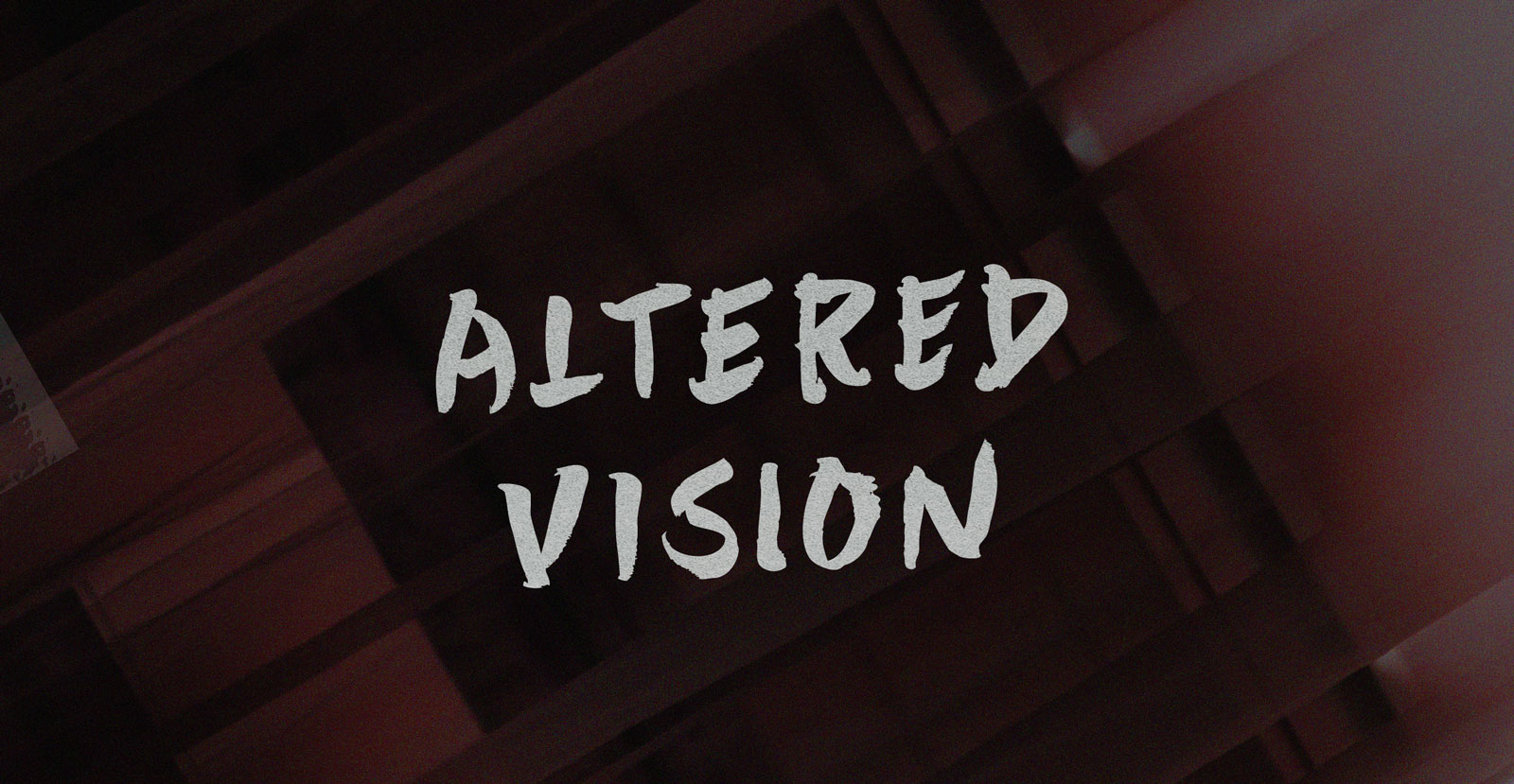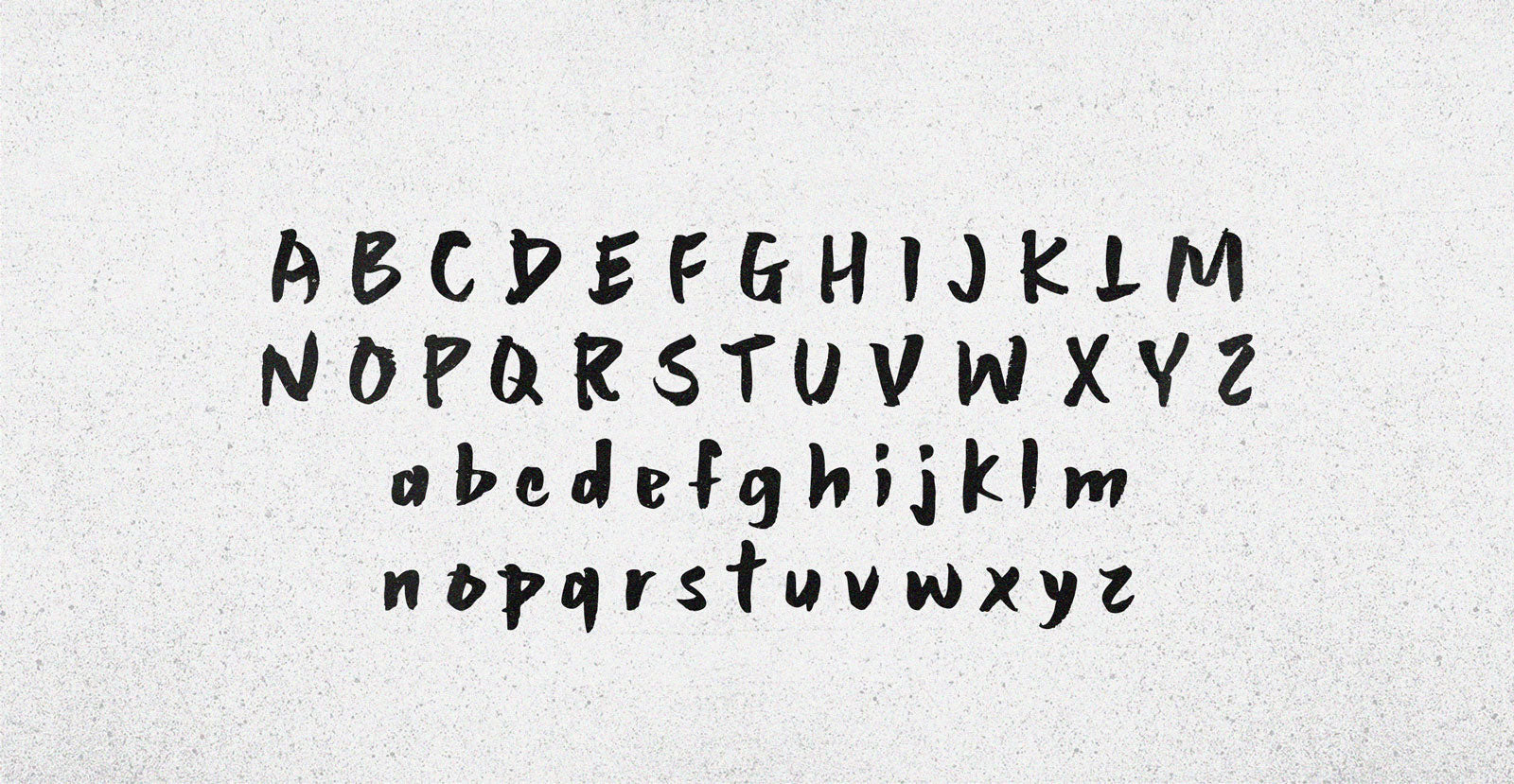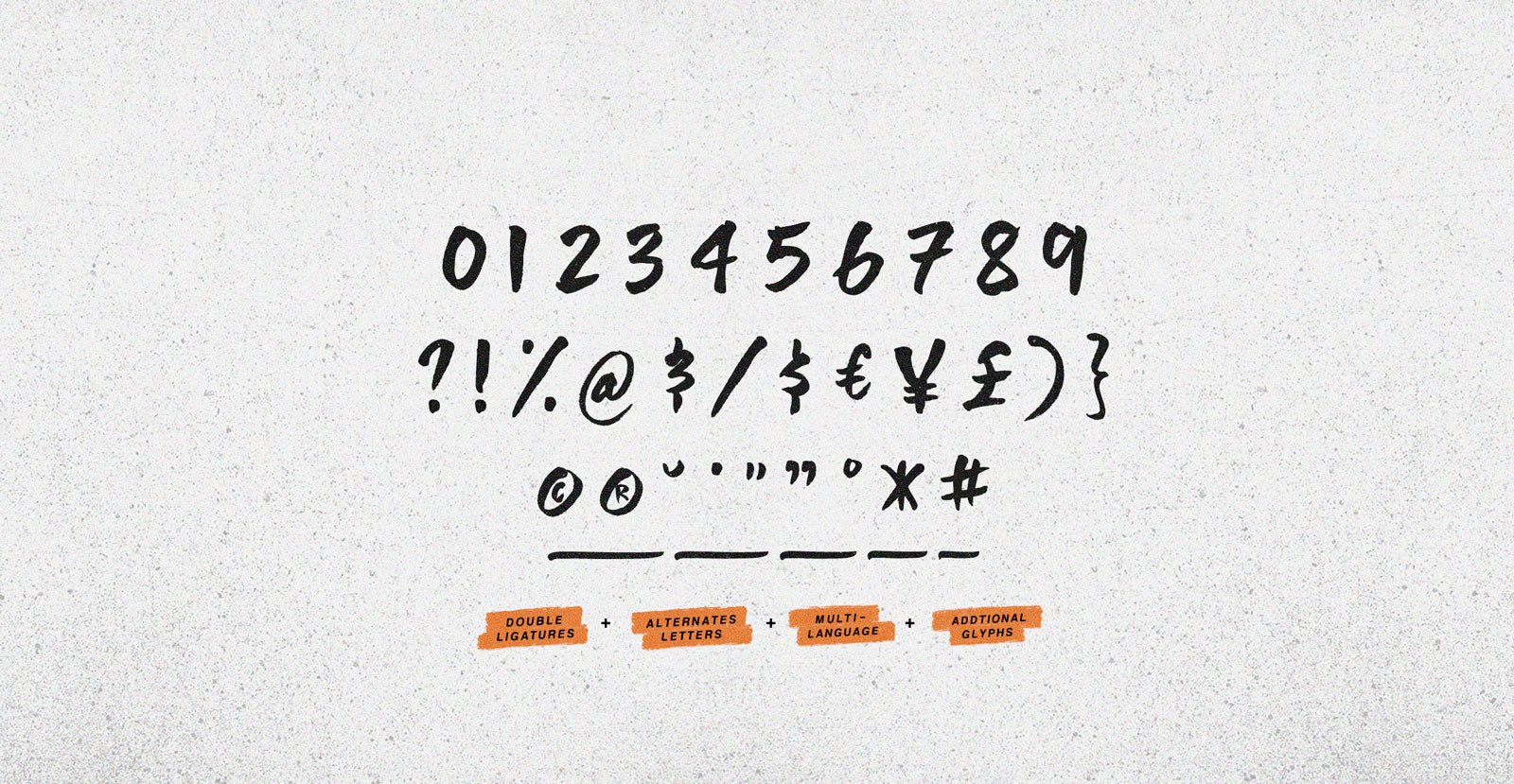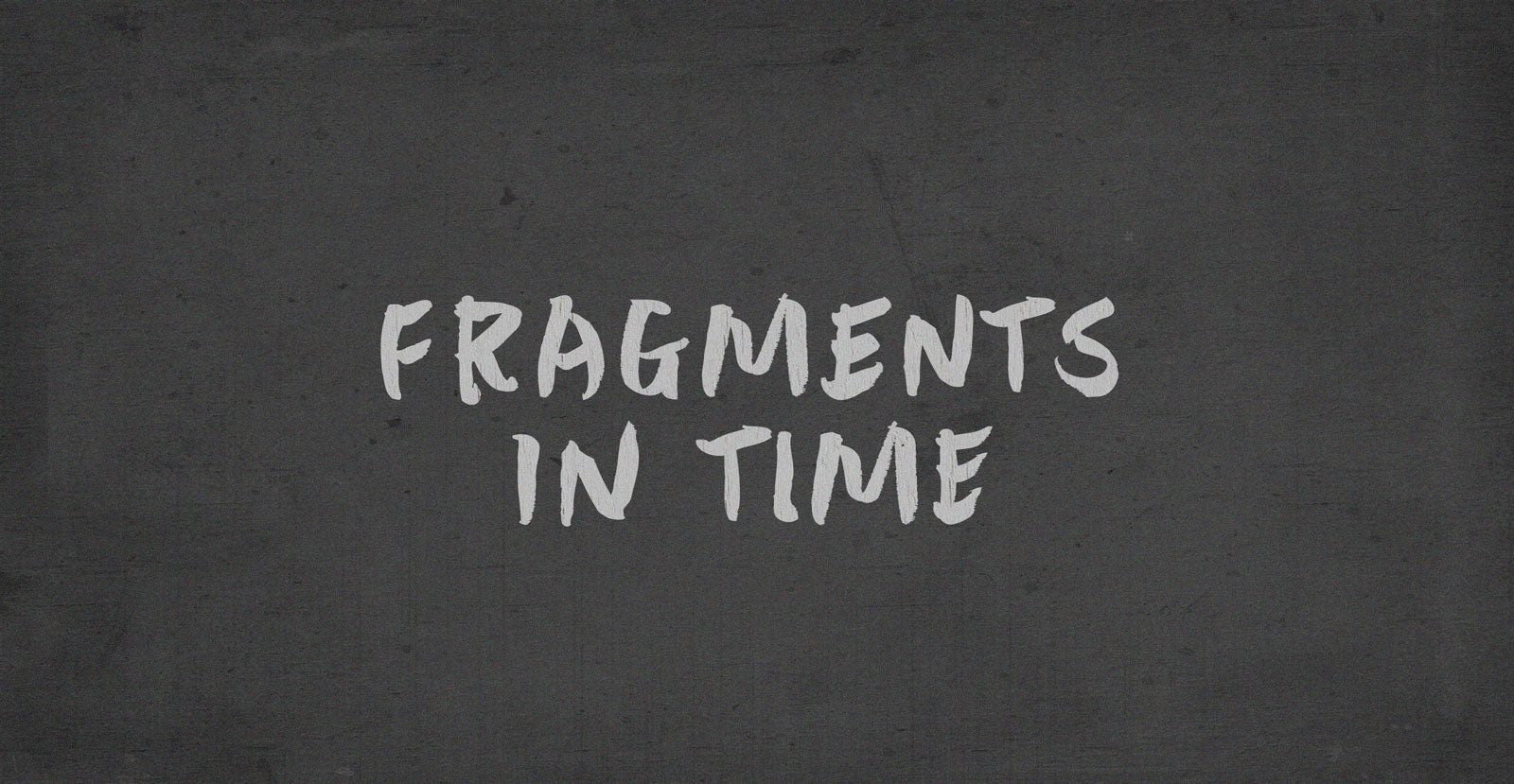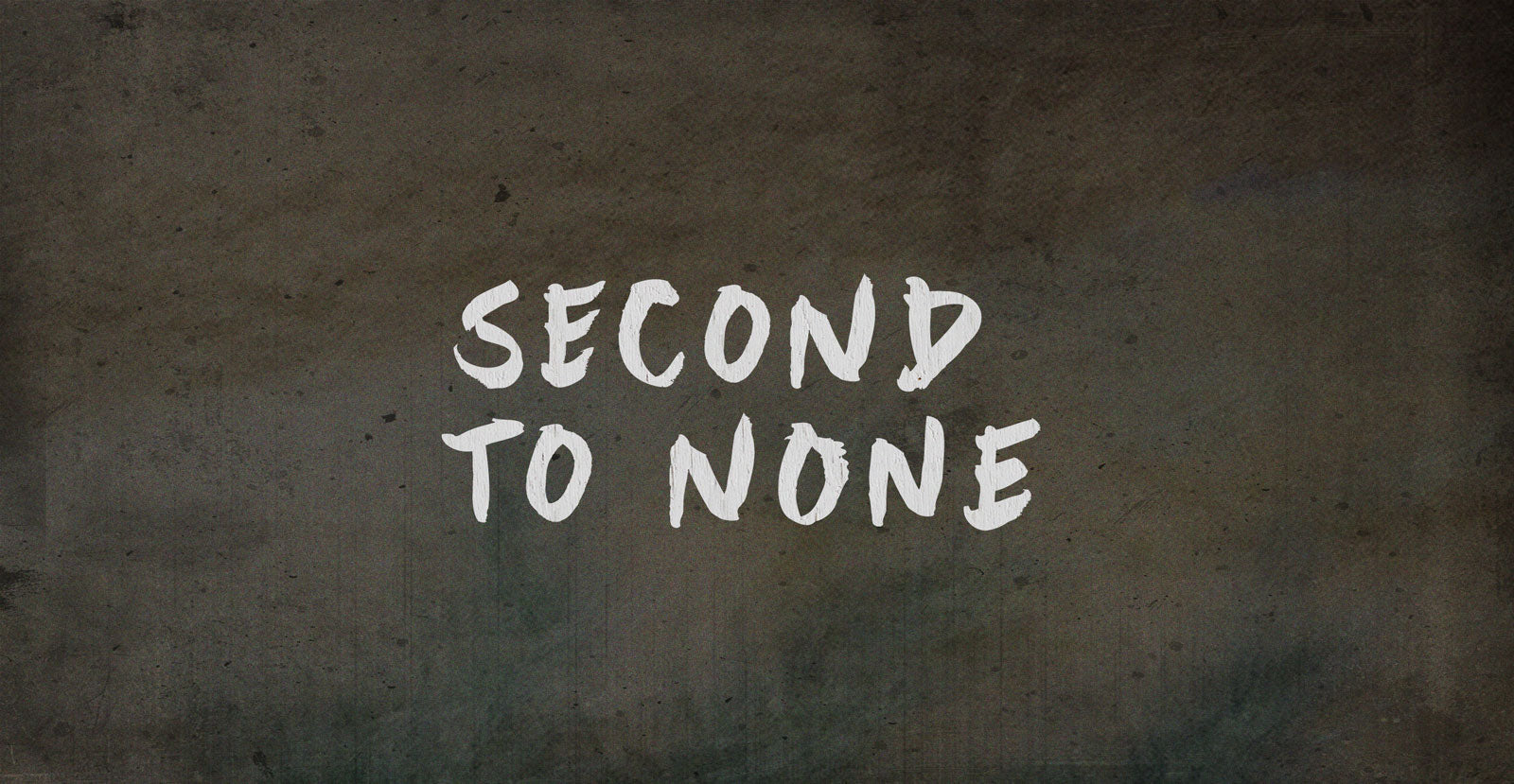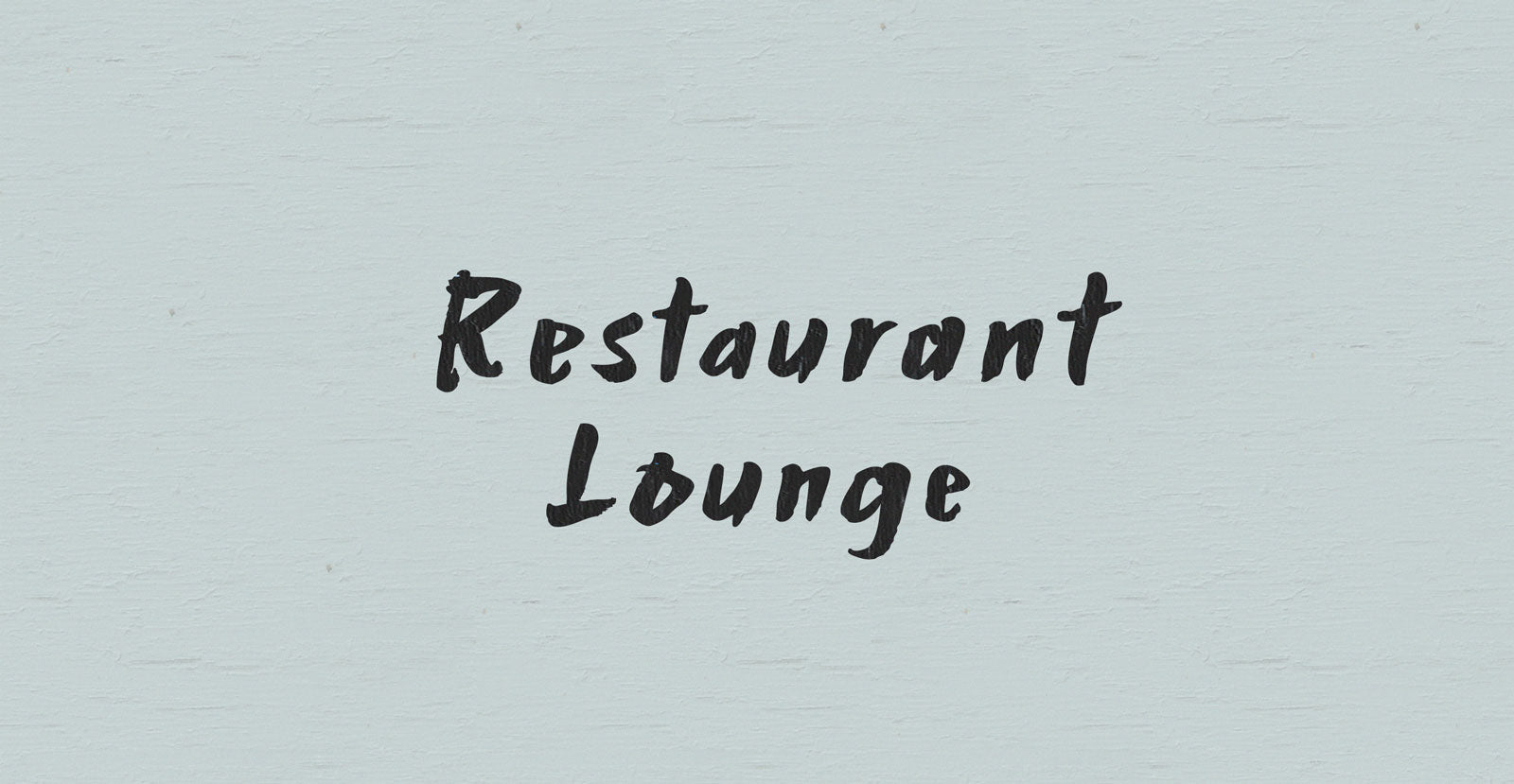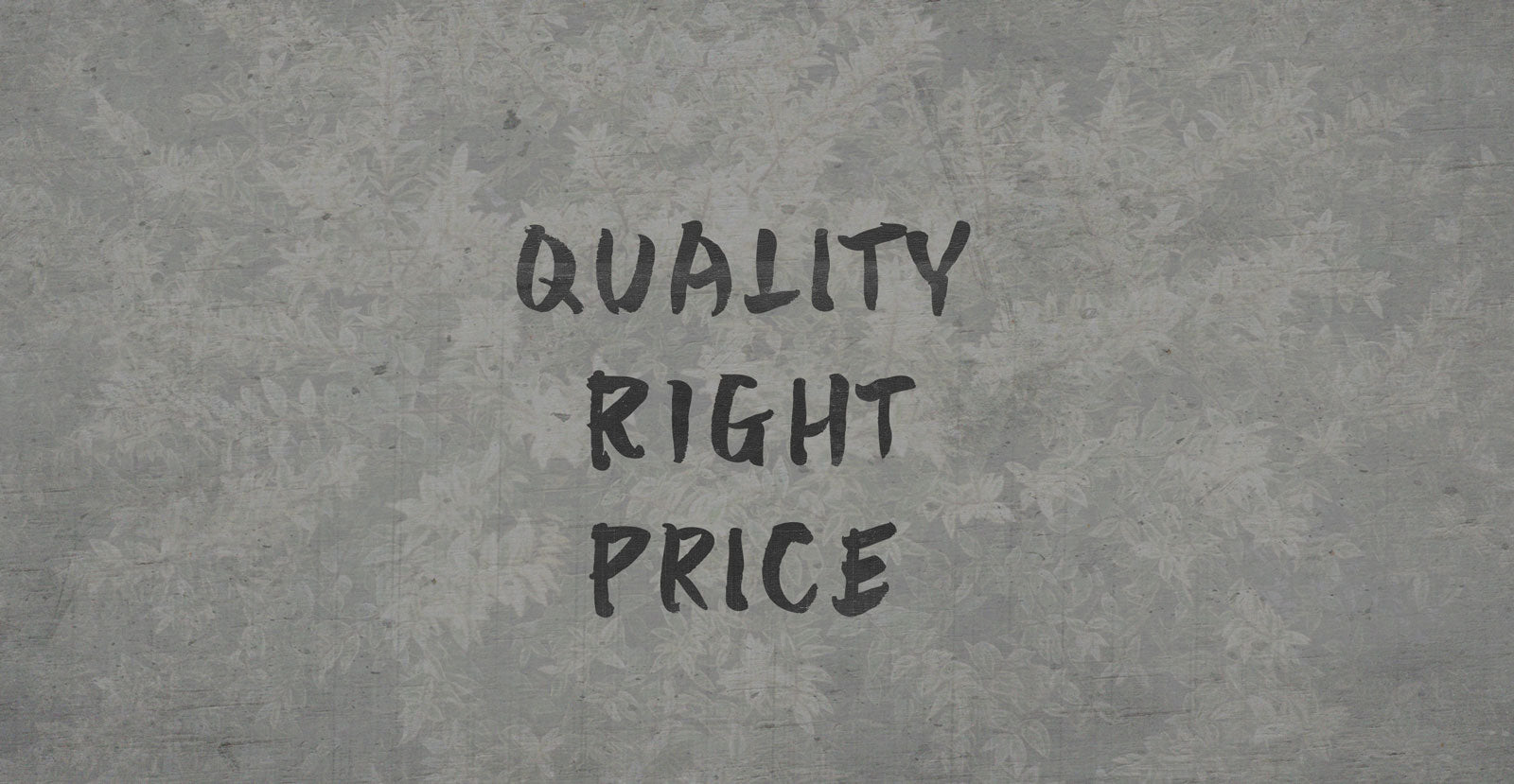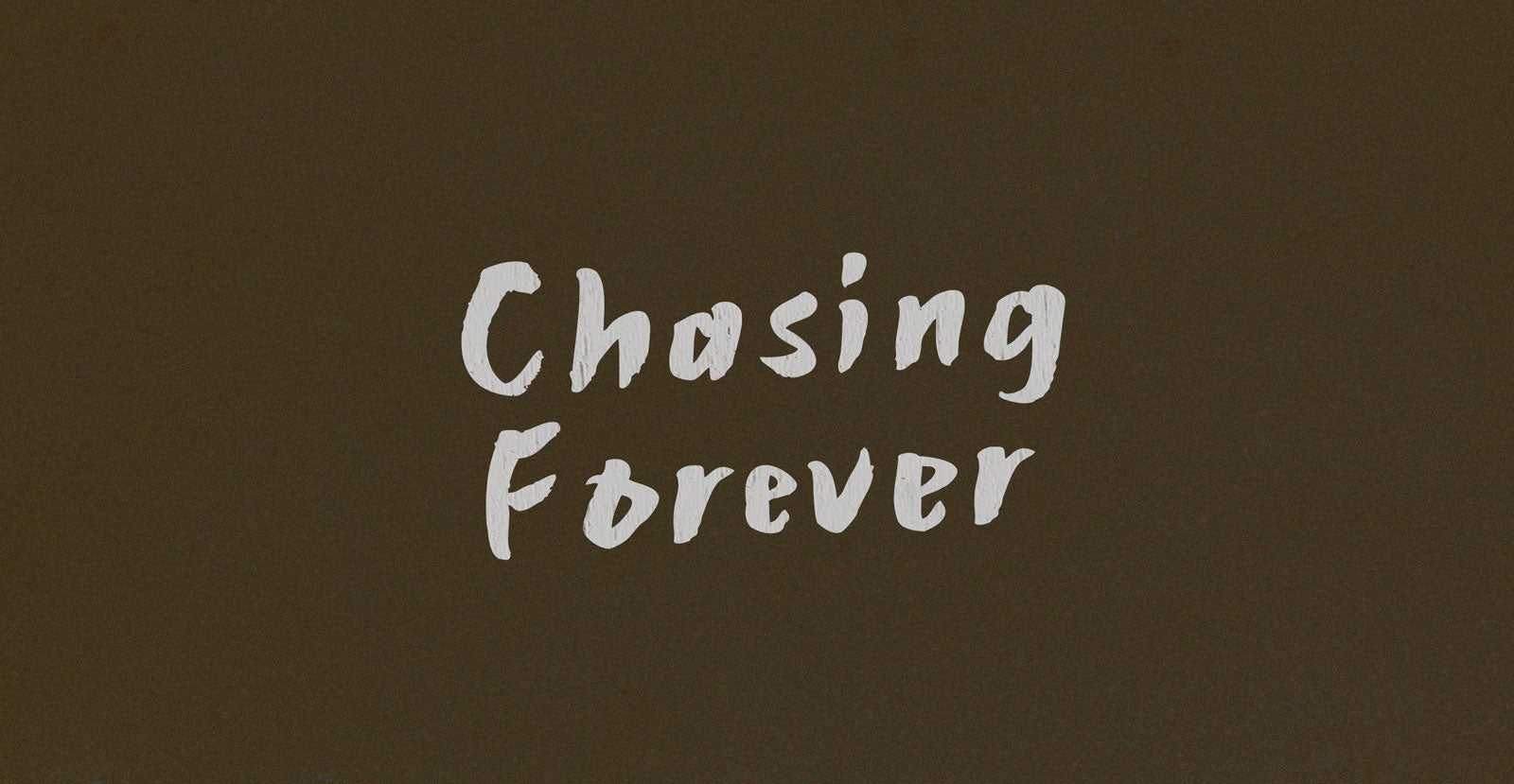
Altered Vision
Handwritten Brush Font
To the winner went the wisdom to hear the call for an Altered Vision. To press our present future through a strainer made of polished glass and psychedelic beer goggles, at a rate removed from light-speed by the absolute value of glacial.
• Underlines